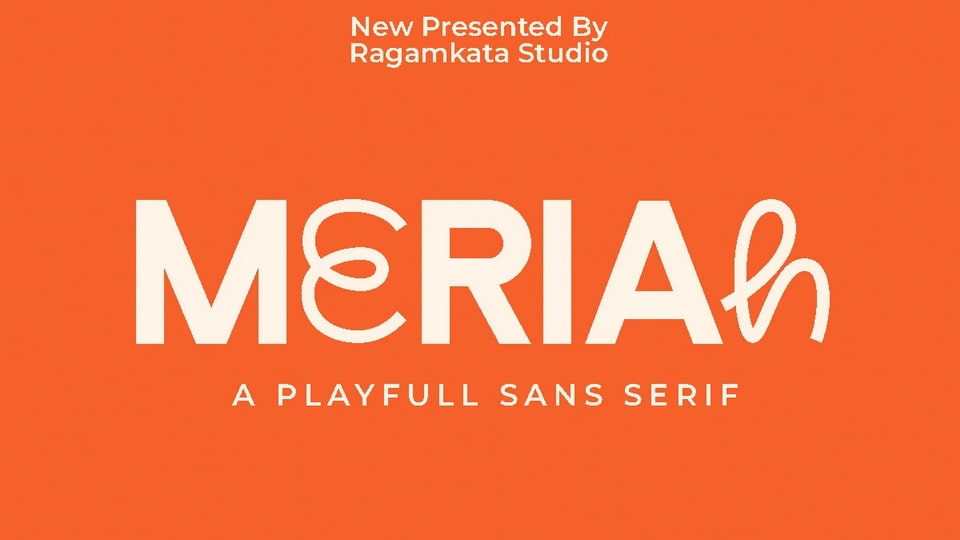
Download Meriah font, an experimental combination typeface that include 2 fonts that have a very different style and appearance, but make this font look unique.